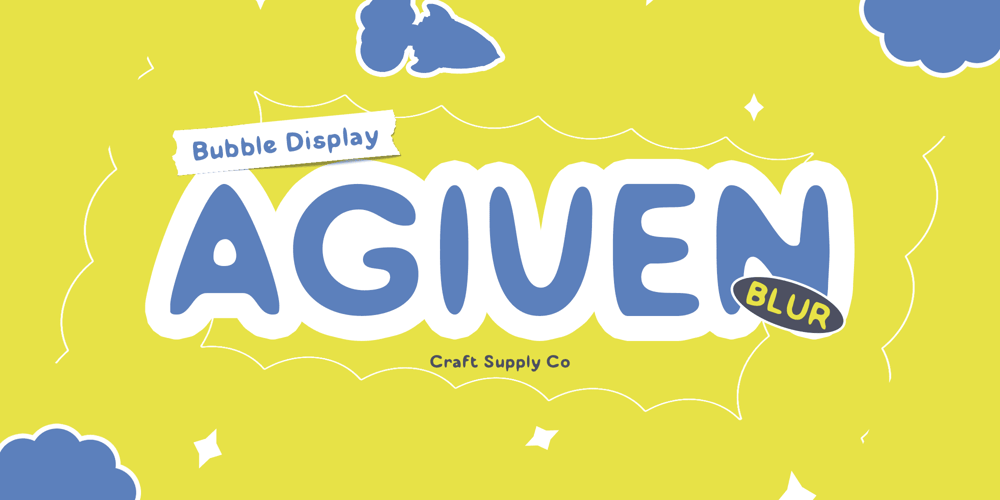
Agiven Blur Font Family was designed by Trio Nazzar Saputra, Wahyu Hadi Yuana and published by Craft Supply Co. Agiven Blur contains 2 styles and family package options. Agiven Blur: Playful Charm in Every LetterCute Balloon DesignAgiven Blur boasts a delightful balloon-inspired design that adds a playful touch to any display project. Its rounded shapes and bubbly appearance evoke a sense of whimsy and fun.Perfect for Fun ThemesWhether you’re designing for a children’s event, a whimsical party, or any fun-themed project, This font is the perfect choice. Its cheerful demeanor brings joy to every design it graces.Enhanced with Blur EffectWith the addition of a subtle blur effect, This font takes on a dreamy and ethereal quality. This effect adds depth and dimension to each letter, enhancing its visual appeal.Ideal for DisplayThis font is tailor-made for display purposes, standing out boldly in headlines, titles, and other prominent text elements. Its eye-catching design ensures that your message gets noticed.Whimsical Elegance with a Dreamy TwistThis font combines the playful charm of a balloon-inspired design with a dreamy blur effect, making it the perfect choice for fun-themed projects. Its versatility and eye-catching appeal make it a standout font for any display application.